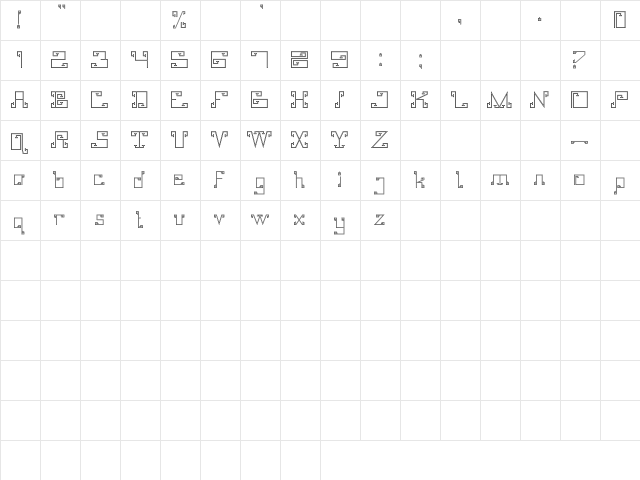
Ainu Minzoku Normal
Design Context for Ainu Minzoku
Ainu Minzoku is a composed and adaptable typeface that performs quietly and consistently across a wide range of design contexts.
Pro Tip: Use Ainu Minzoku in both headline and body roles to test its range before committing to a single application.